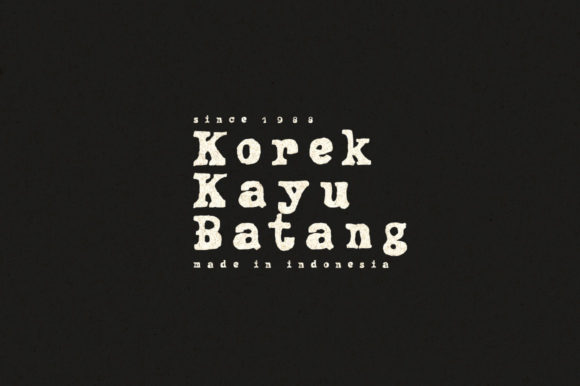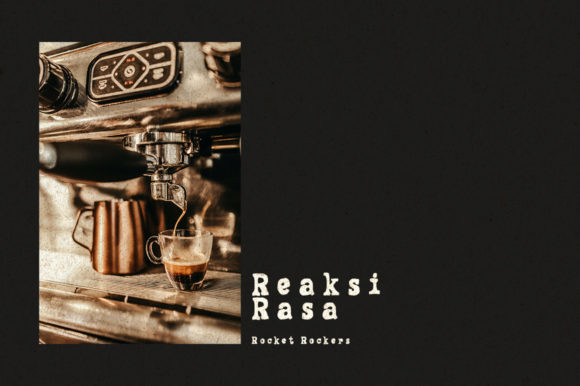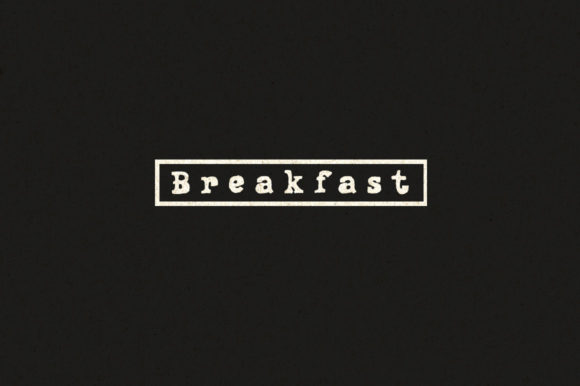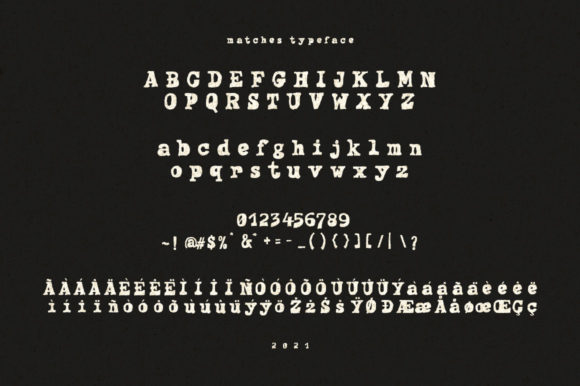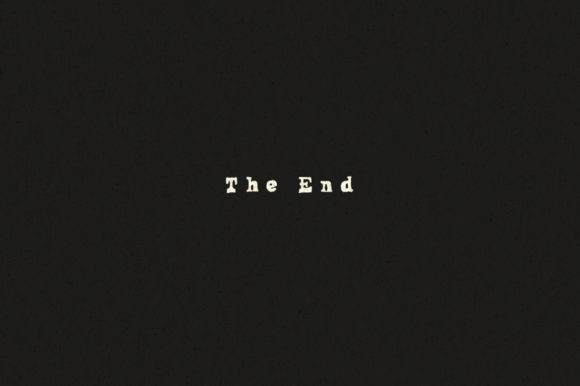
Introduction to Matches Font Font
Fonts play a crucial role in design, and the Matches Font font is a typeface that brings both character and versatility to any project. Whether you’re working on a branding project, a website, or a print design, the Matches Font font offers a unique style that can elevate your work.
Matches is an old school and thick lettered serif font.
This font reads as strong, confident, and dynamic and can add tons of retro character to your designs .
Key Features of Matches Font Font
Why Choose Matches Font Font?
The Matches Font font is more than just a typeface – it’s a design tool that helps you communicate your message with style and clarity. Its unique character set and versatile design make it suitable for a wide range of applications, from elegant invitations to bold headlines.
With its carefully crafted letterforms and balanced proportions, the Matches Font font ensures readability and visual appeal across all mediums.
What makes Matches Font font special?
The Matches Font font stands out with its unique design, exceptional readability, and versatility across various design applications.